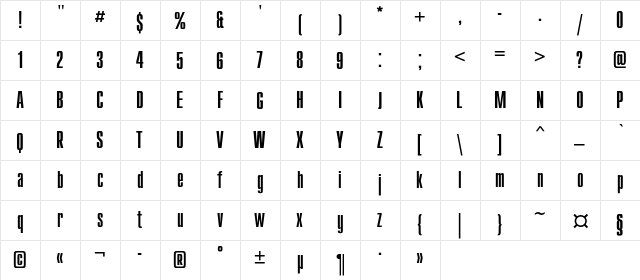
CompactC Regular
Design Context for CompactC Typeface
CompactC offers clean, dependable letterforms without strong stylistic allegiance, making it a practical choice for designers who need flexibility. Its narrow stance lets it pack a punch even in space-constrained designs.
Pro Tip: Use CompactC in both headline and body roles to test its range before committing to a single application.